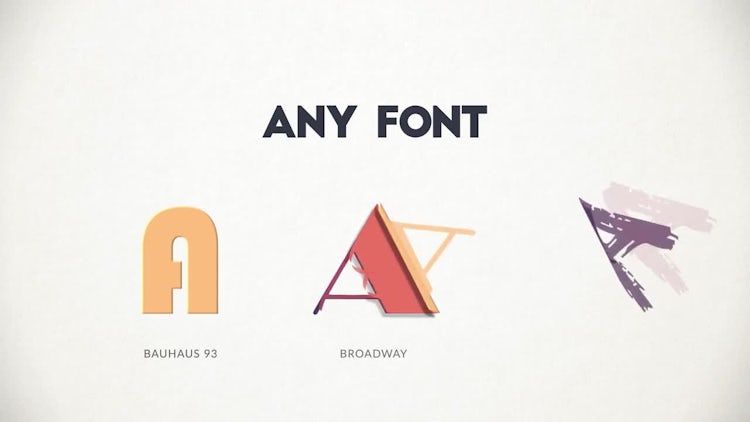
Paper Animated Typeface is a neat After Effects template with a powerful script for creating wonderful looking and dynamically animated text animations. It includes the English letters A–Z, numbers 0–9, punctuation and special symbols. You don’t need to drag and drop each character in, just enter the text into the script text box and click render. Simply style it to match your own brand, using the full color controller. A great way to enhance the look and feel of your TV shows, commercials, new products, presentations, slideshows, logo reveals, promotions, Facebook and YouTube videos. No plugins required.